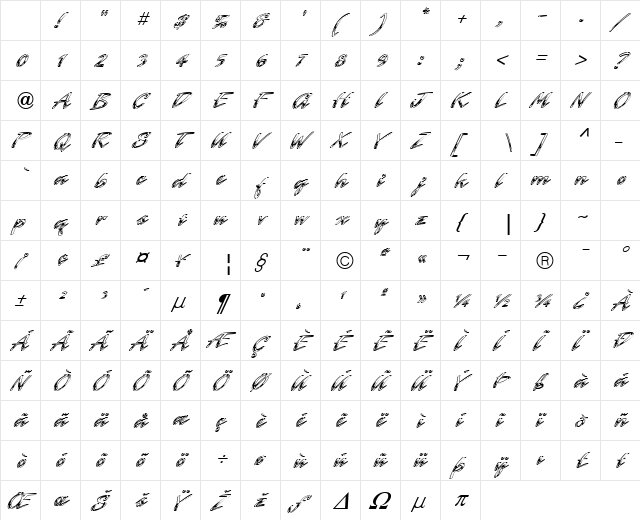
Complete Laser ICG Chrome Alt glyph index. Displaying only characters natively supported by Laser ICG Chrome Alt font.
Laser ICG is a composed and adaptable typeface that performs quietly and consistently across a wide range of design contexts.